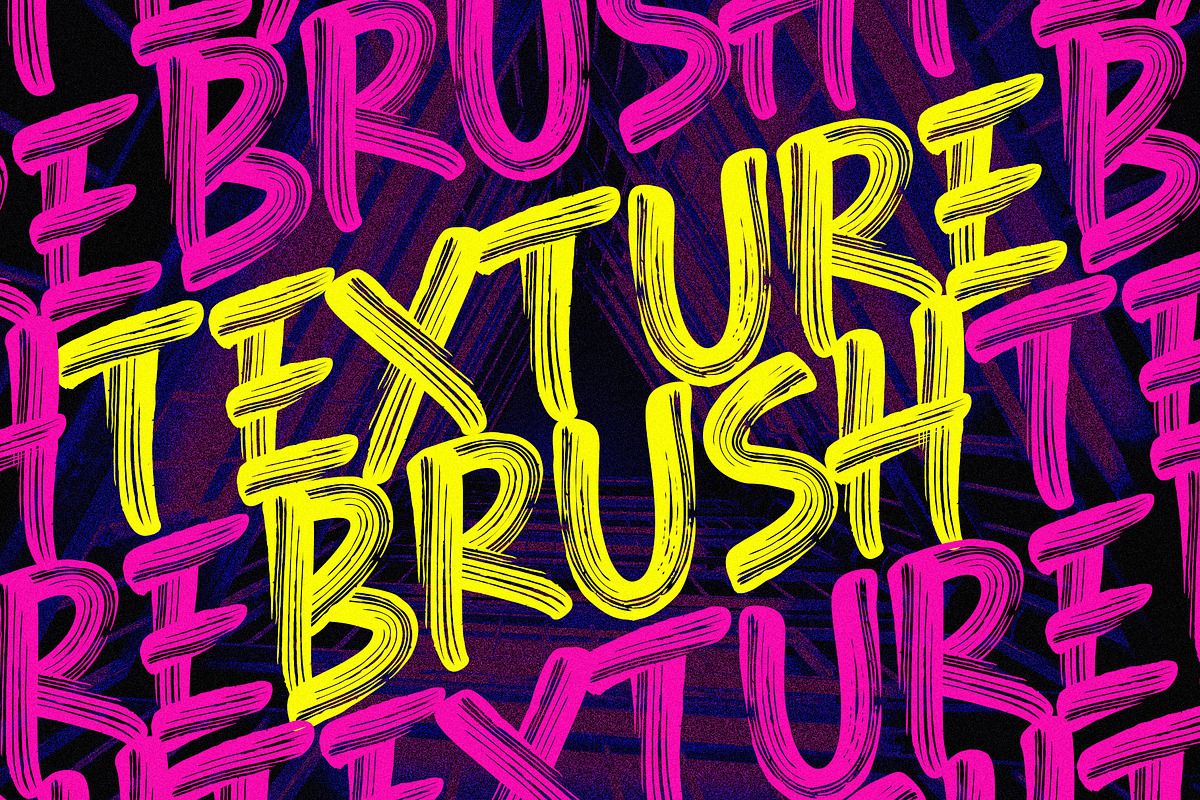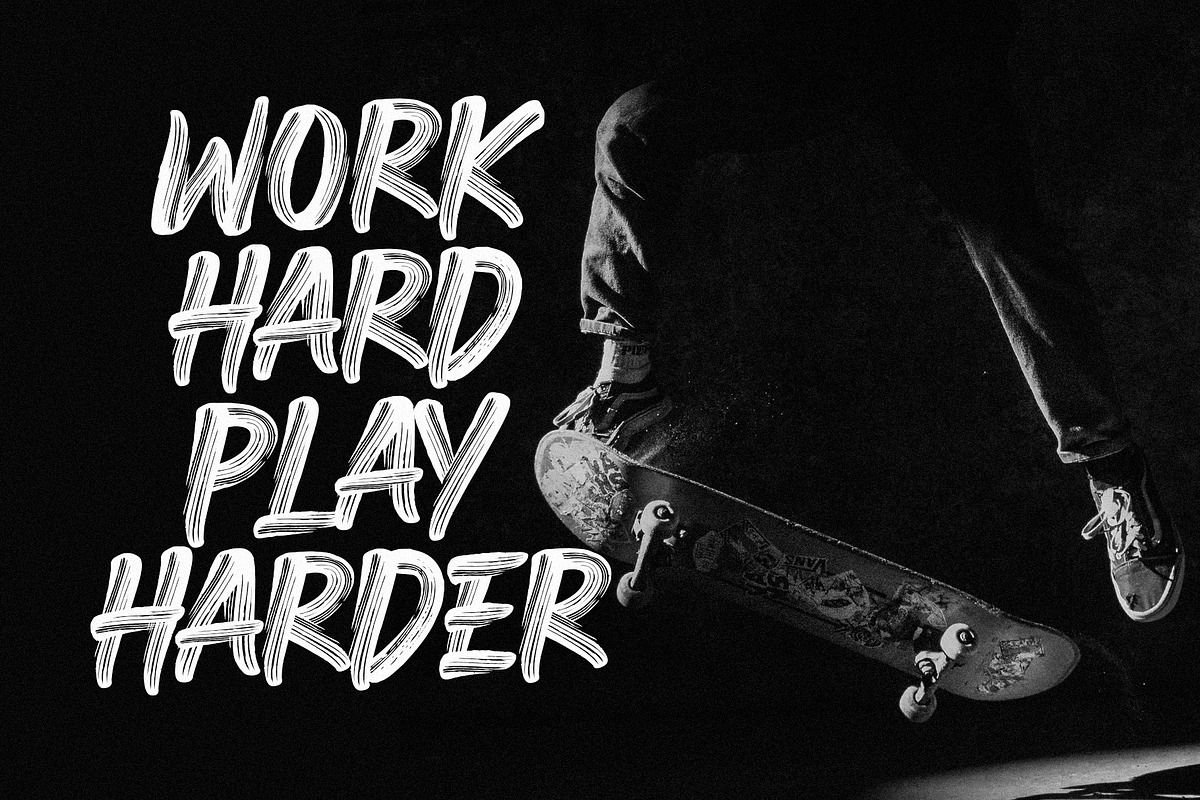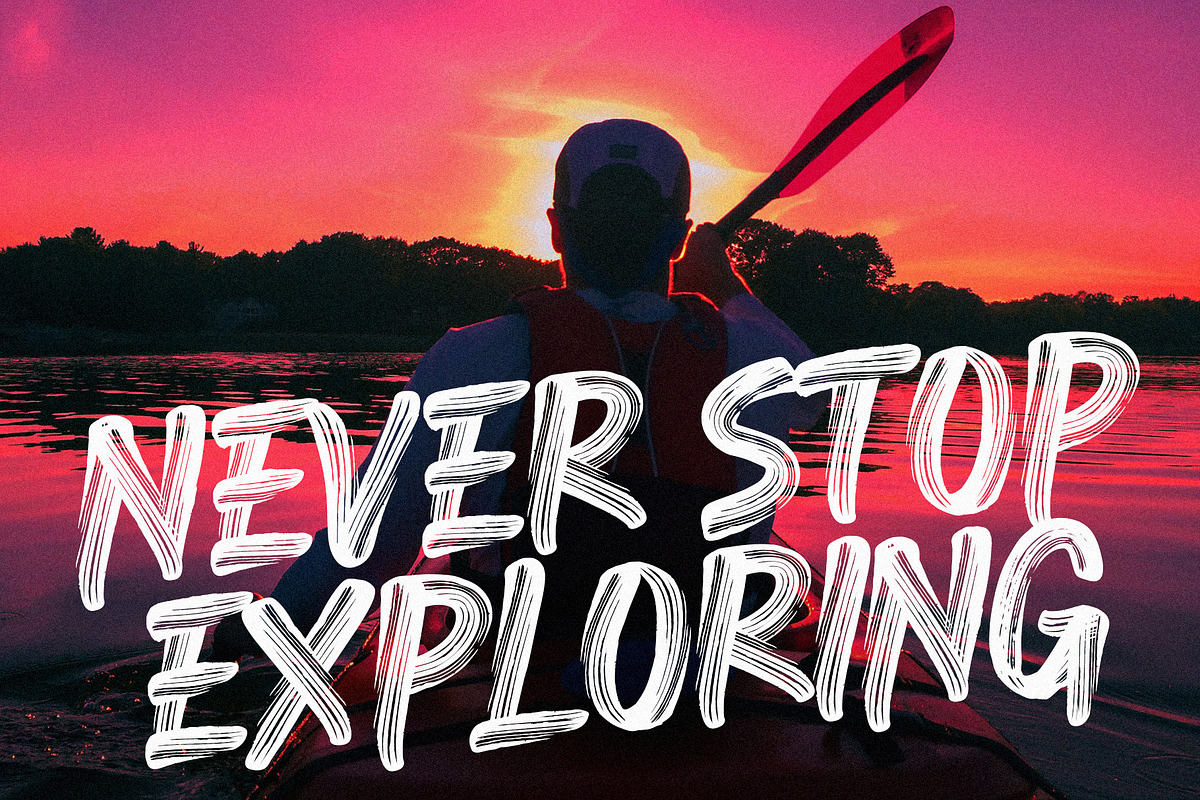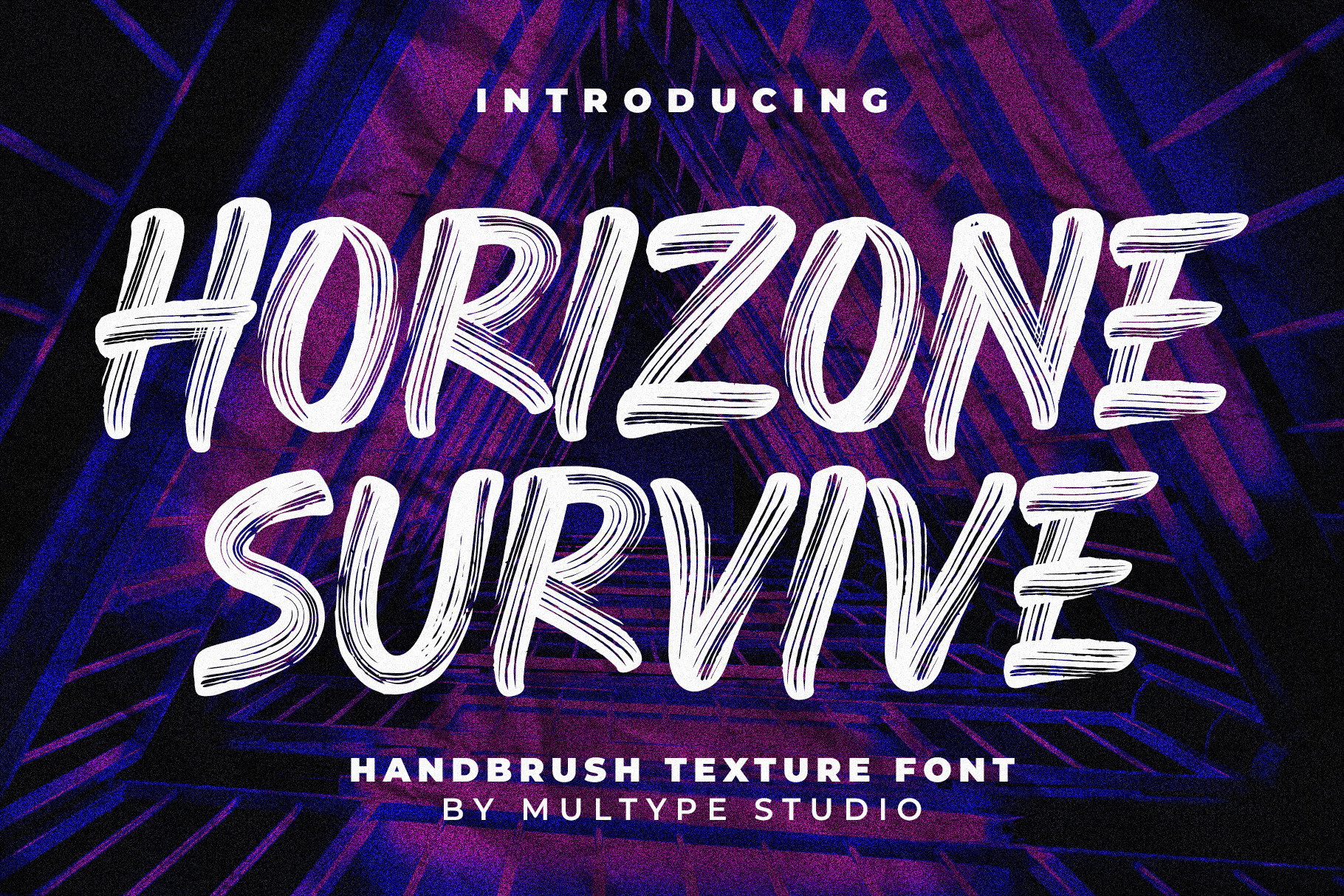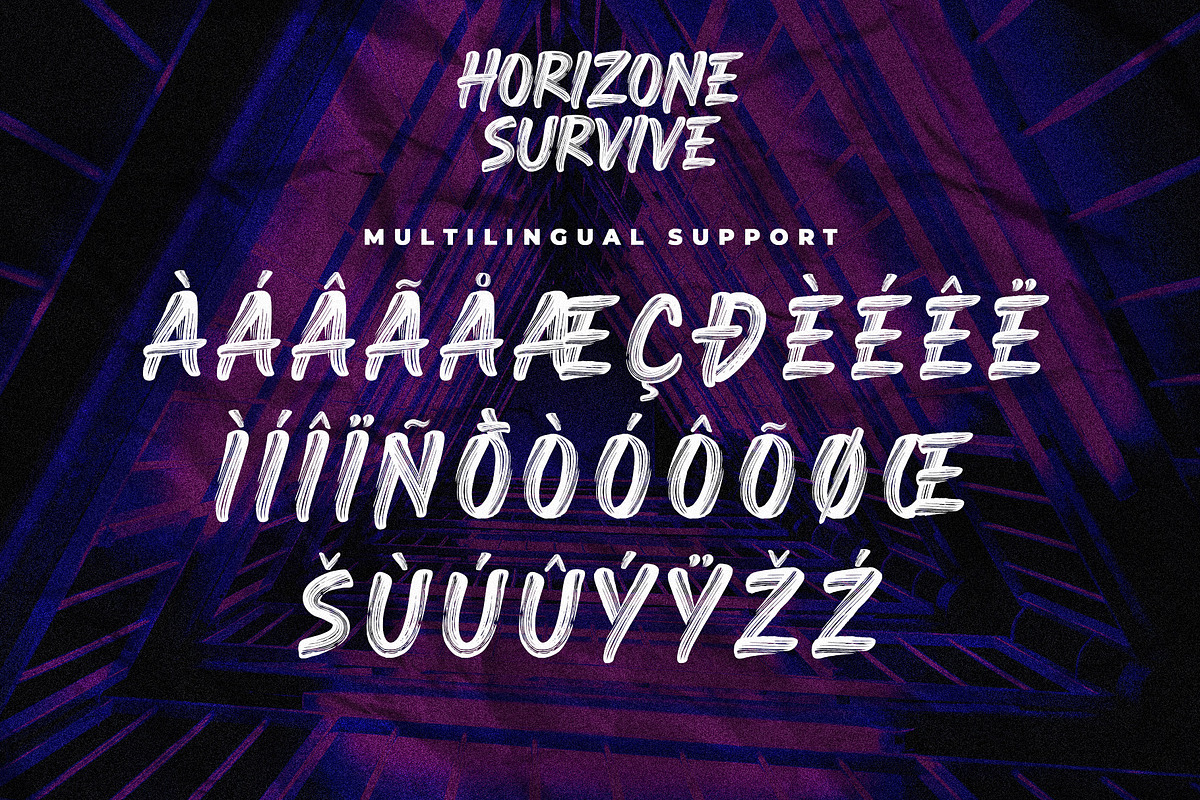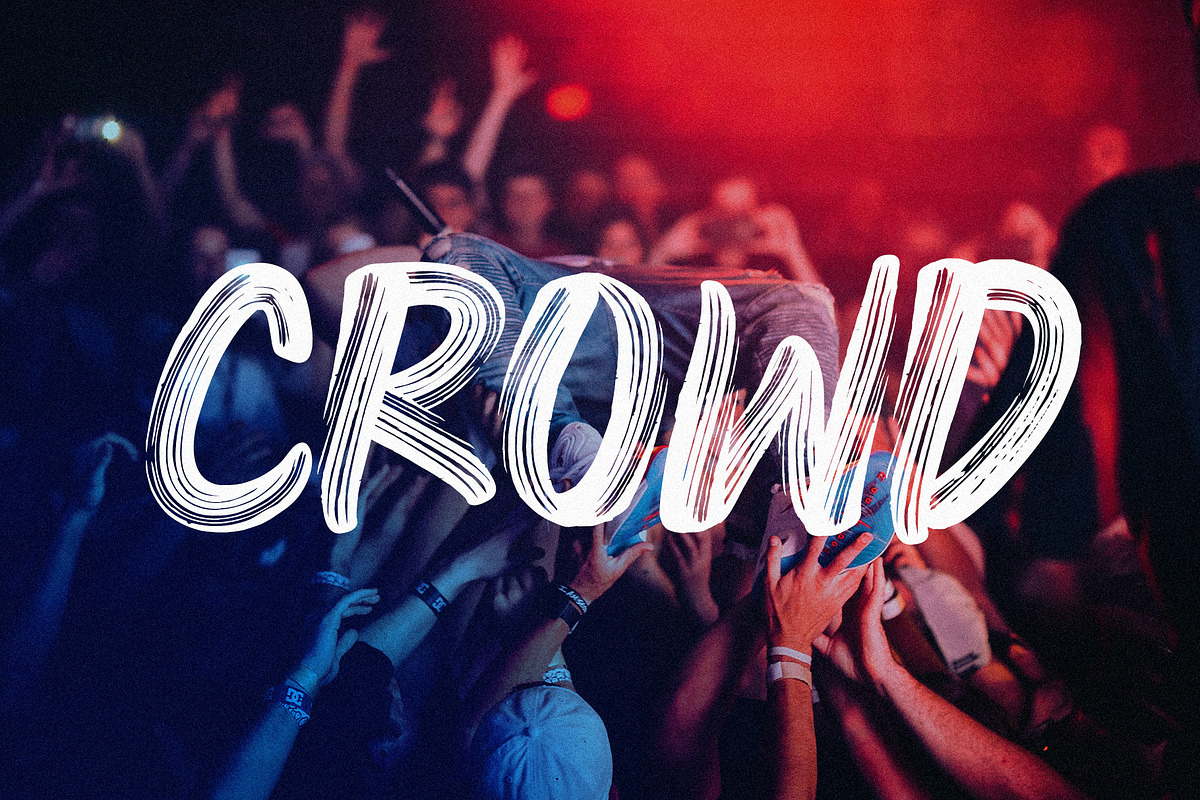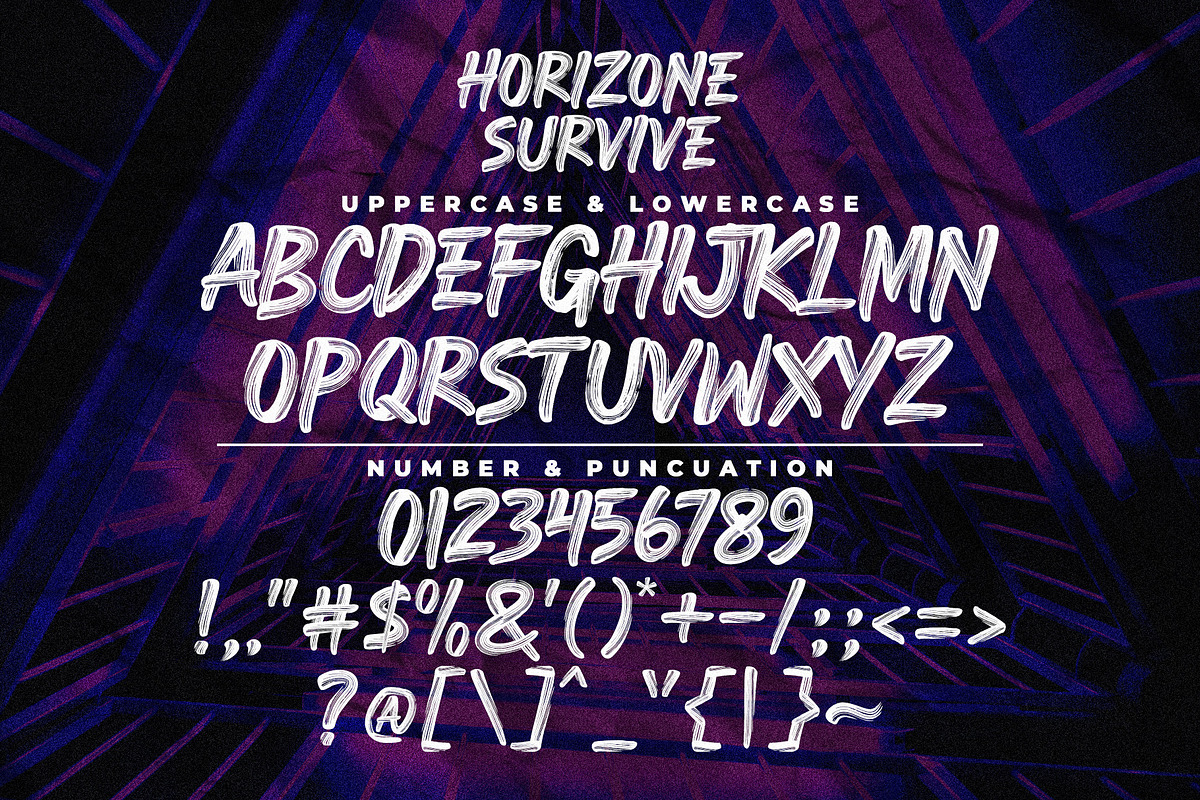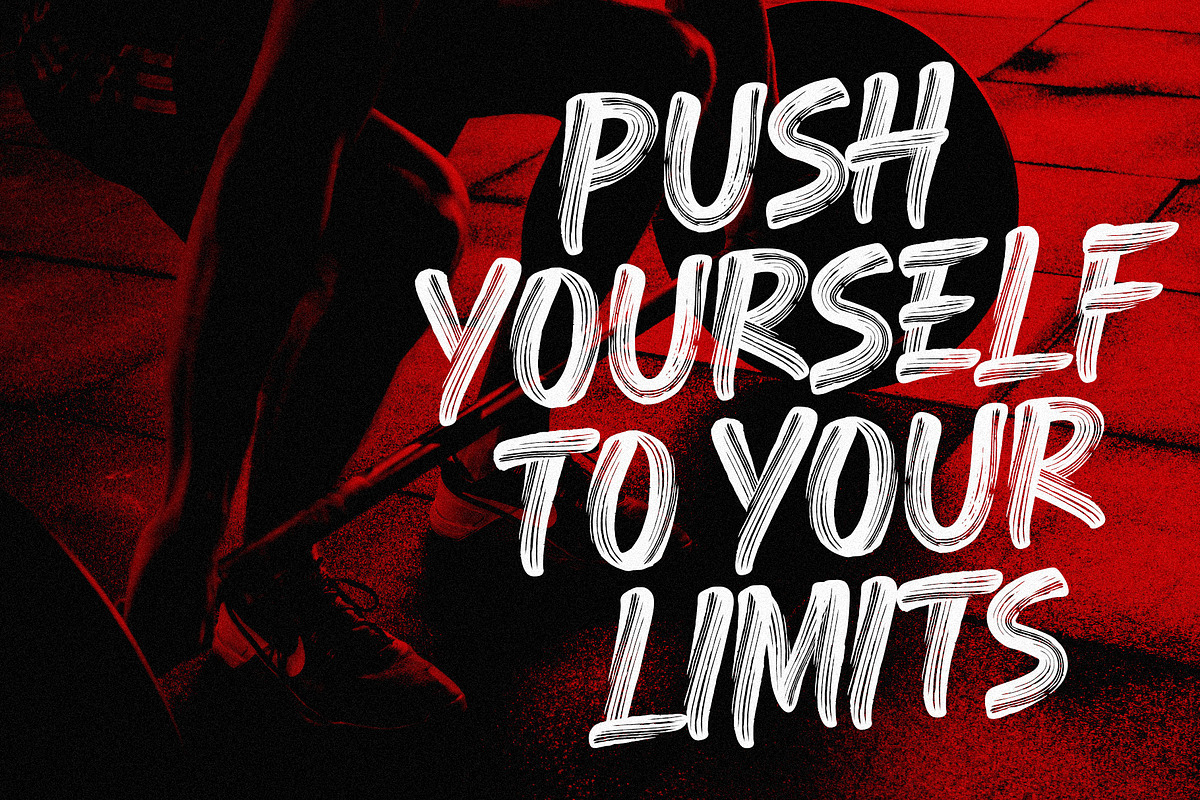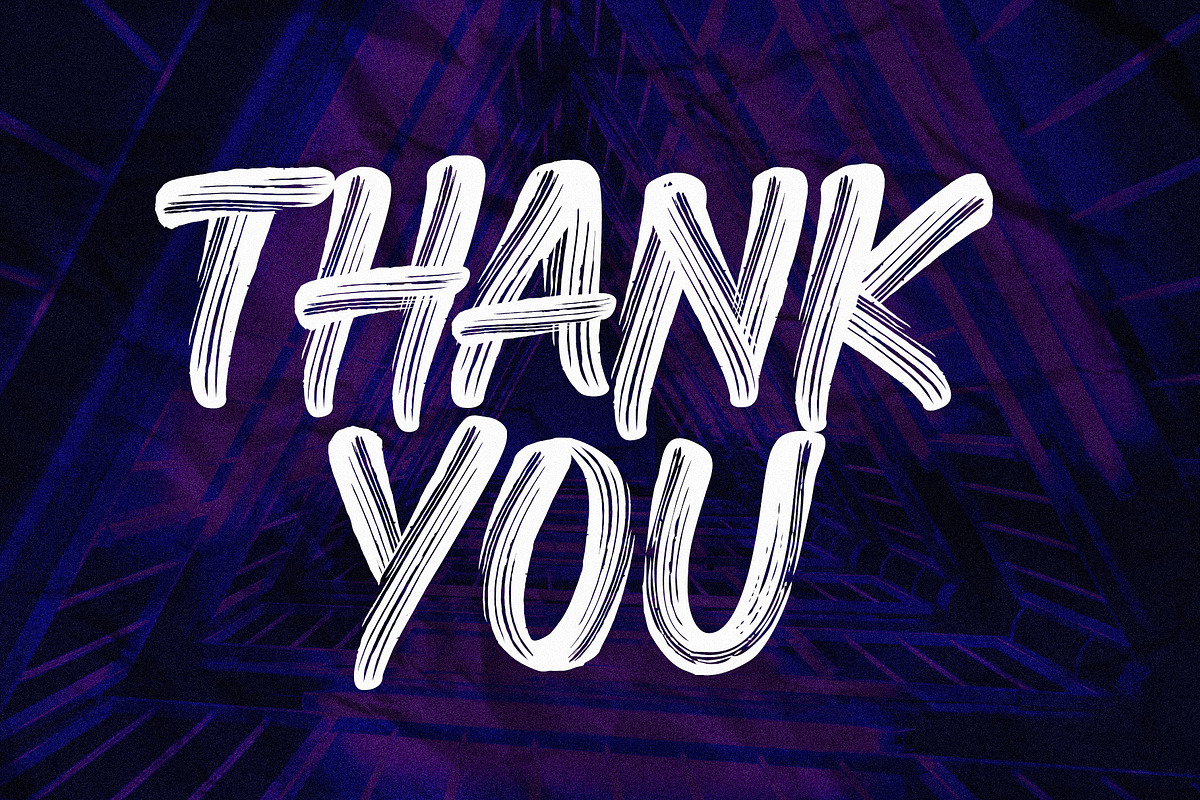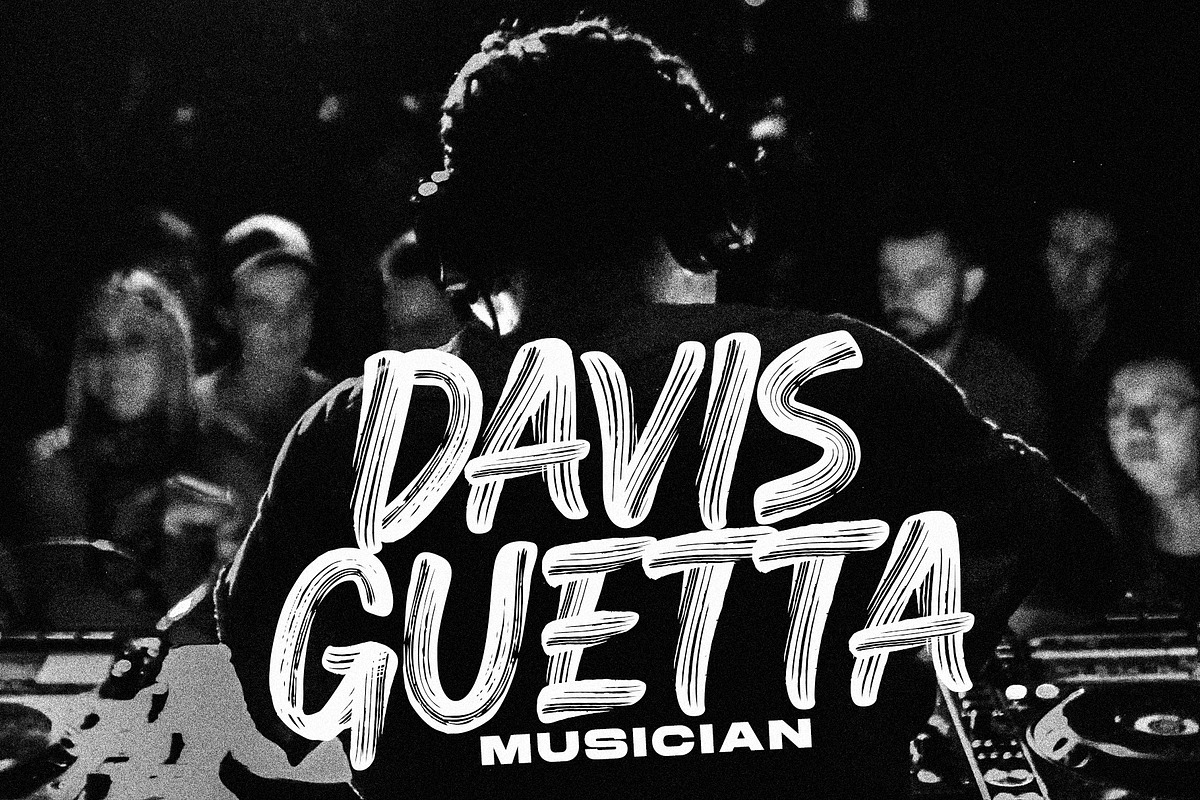
Horizone Survive Brush Font
Horizone Survive is a brush style font. With a very detailed brush style that looks more authentic. This font makes your designs look natural. This font would perfect for logos, branding, product designs, product packaging, photography, watermark, social media posts, advertisements, invitation, stationery, labels, logos, magazines, books, greeting / wedding cards, fashion, make up, and etc.
- ALL CAPS Gliphs
- Numbers & Symbols